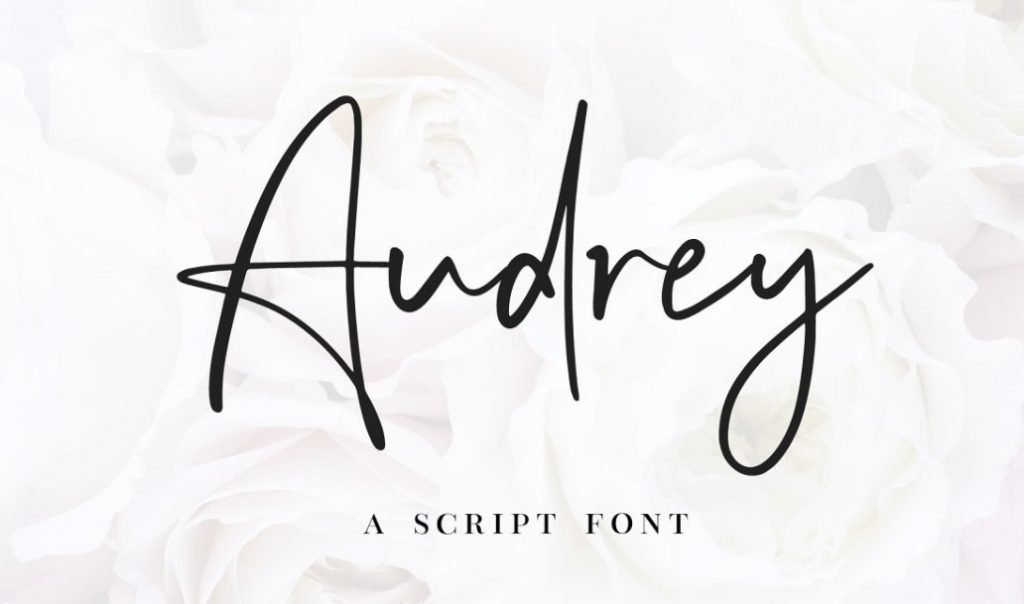
This font all alone would be the perfect choice for making unique logos and it also works well when paired with caps serif or sans serif typefaces like campton
Audrey Font is the slightly edgy and fun handwritten script typeface. We shall be pleased to Cristina Pagnotta the designer of this typeface for sharing this typeface for free download and personal use.
This font all alone would be the perfect choice for making unique logos and it also works well when paired with caps serif or sans serif typefaces like campton font. This is also similar to the quicksand font.
This is a perfect typeface for your designs and also comes with a large and different range of Ligatures that will help this in providing the handwritten look.
This typeface comes in three different weights regular, medium, bold, and all three of them work great with bell mt font. This script typeface also contains two variations that are regular and oblique.
The Bavro Font is very close to the Audrey font.